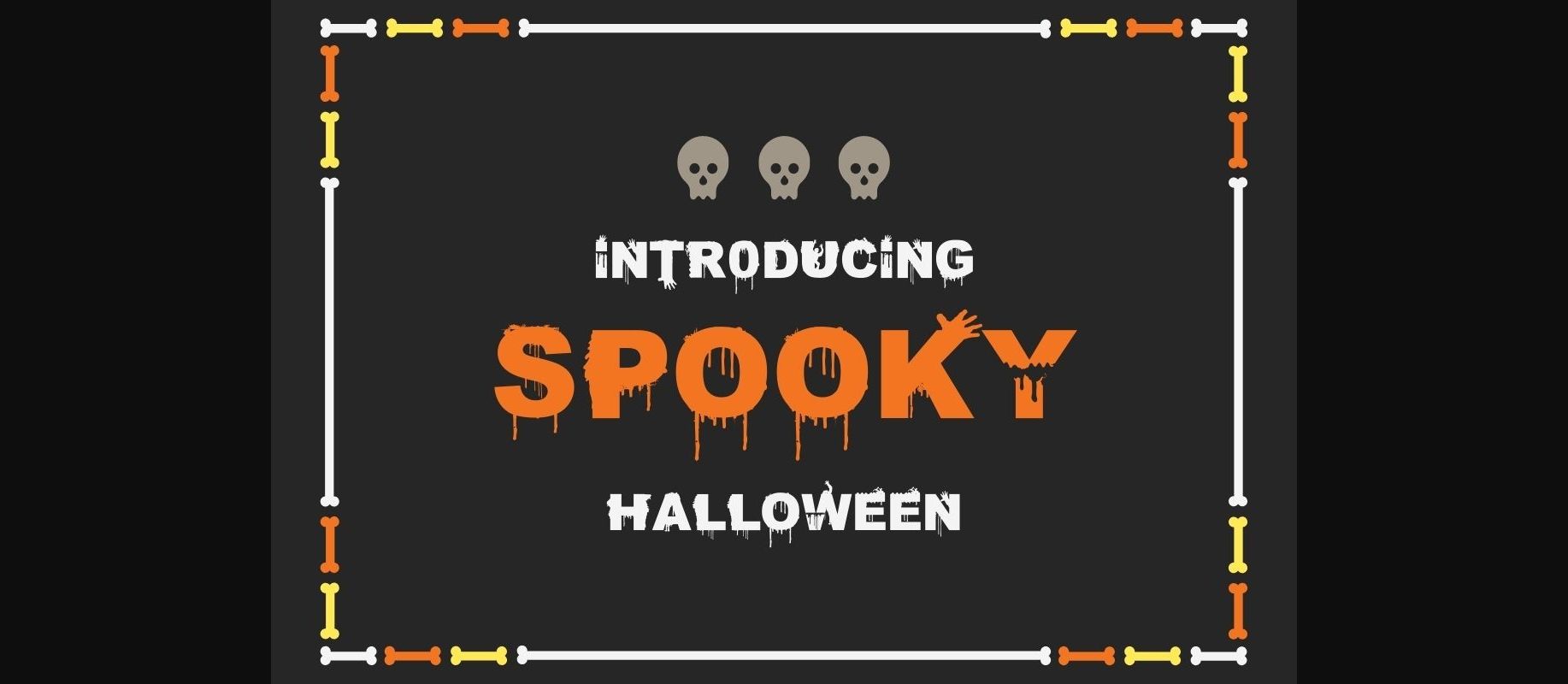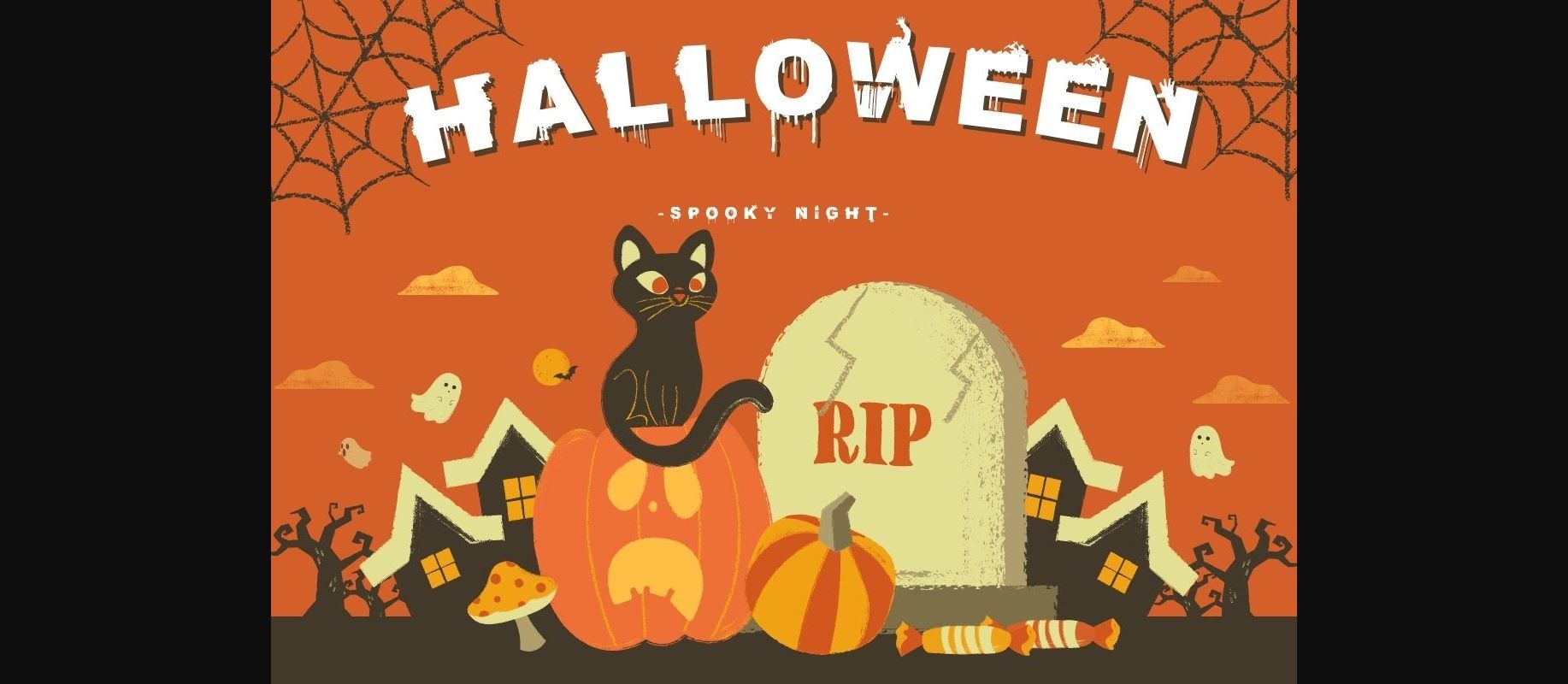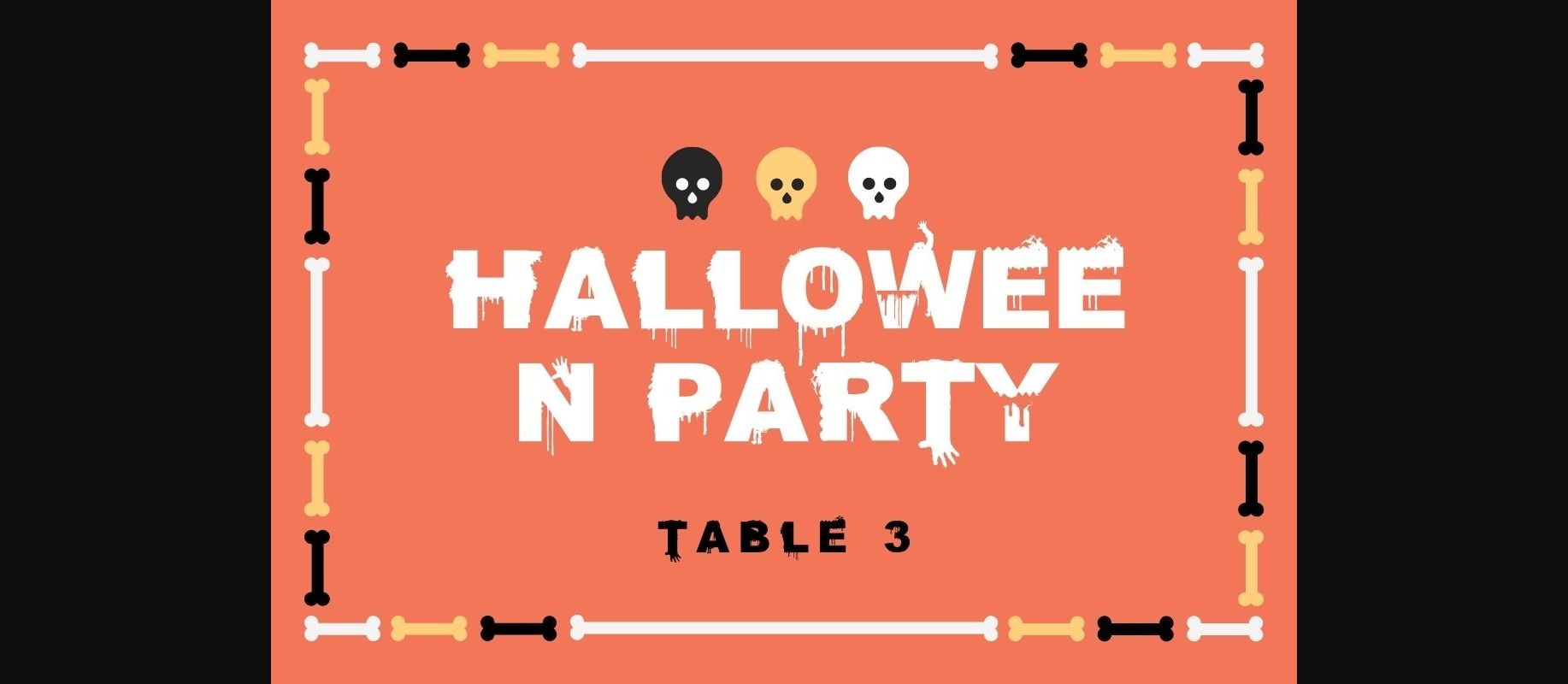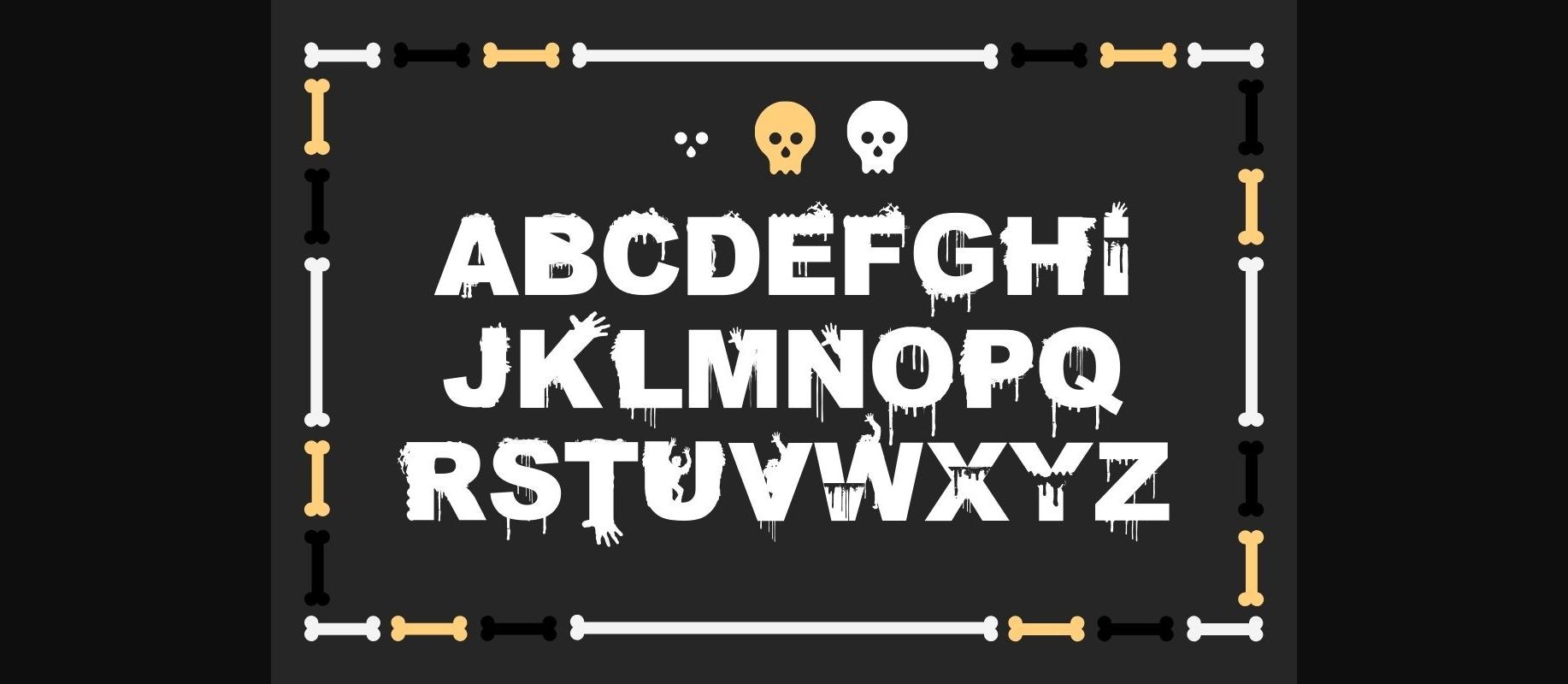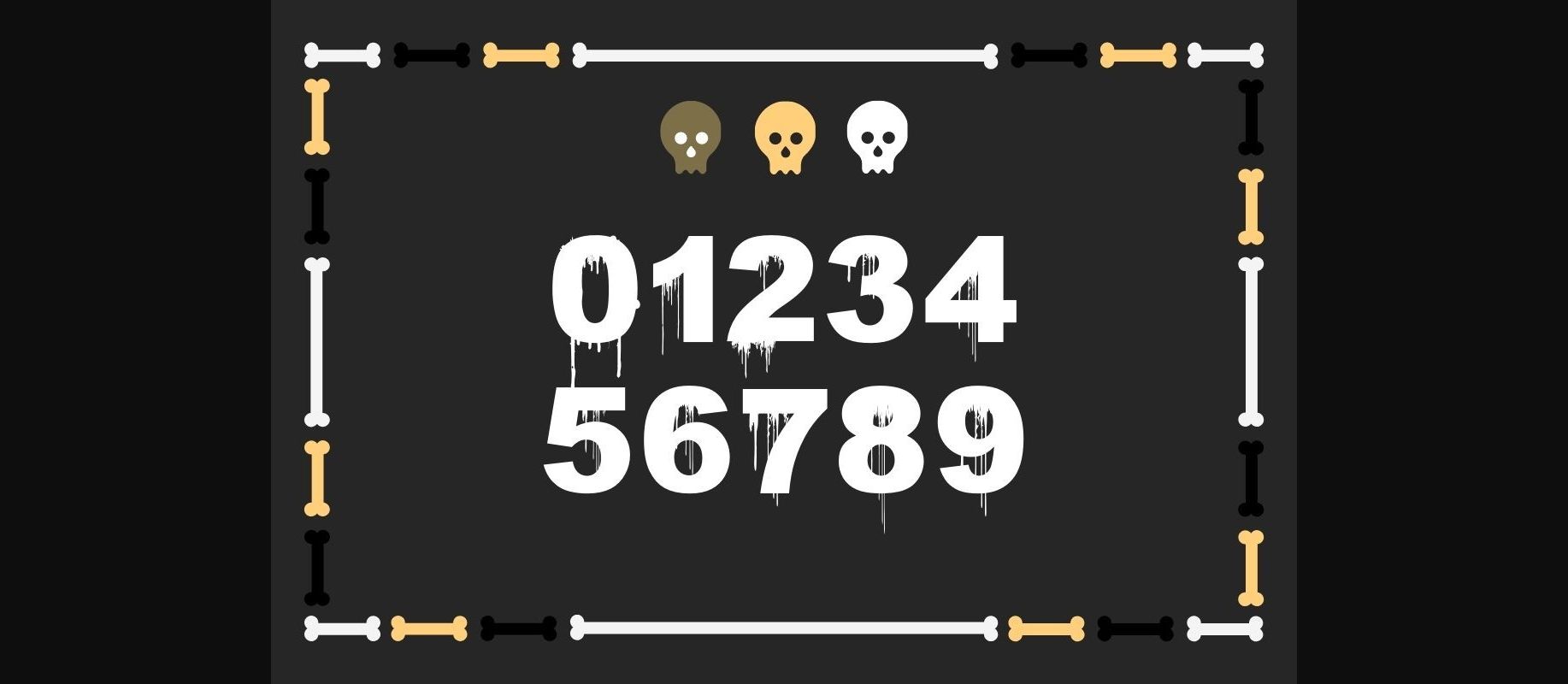
Spooky Halloween is a cool and bubbly decorative font that embodies youthfulness, joy, and a touch of mystery. Add it to Halloween party invitations, gathering banners, or any other project!